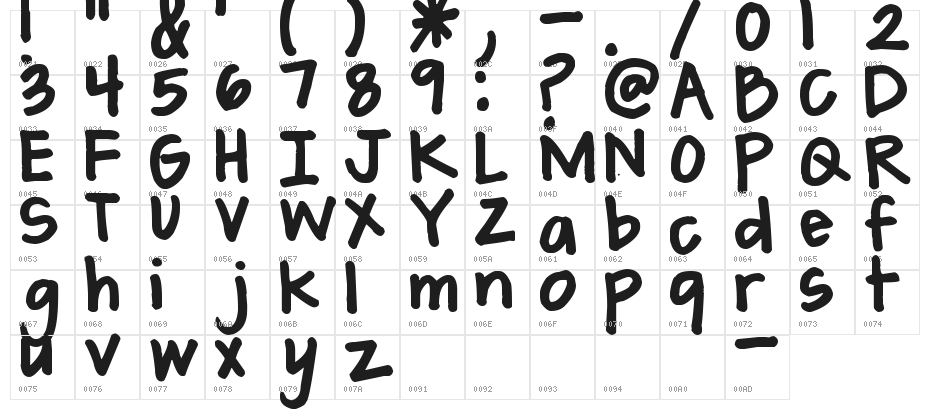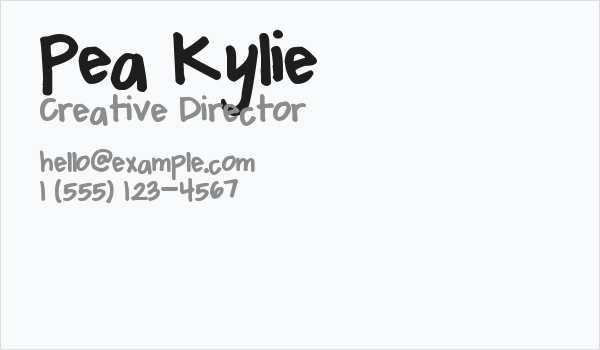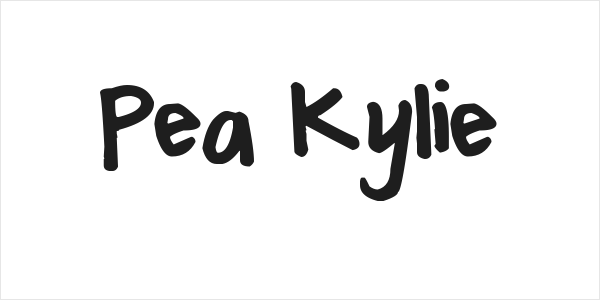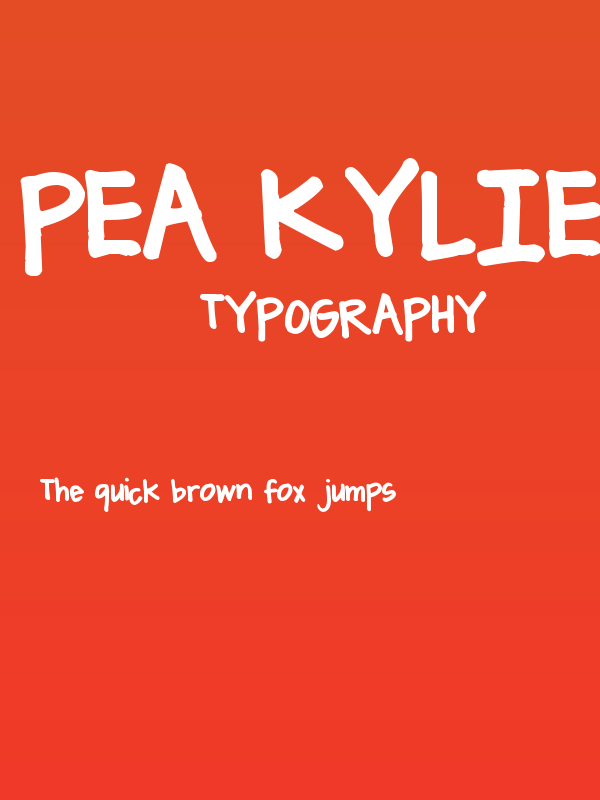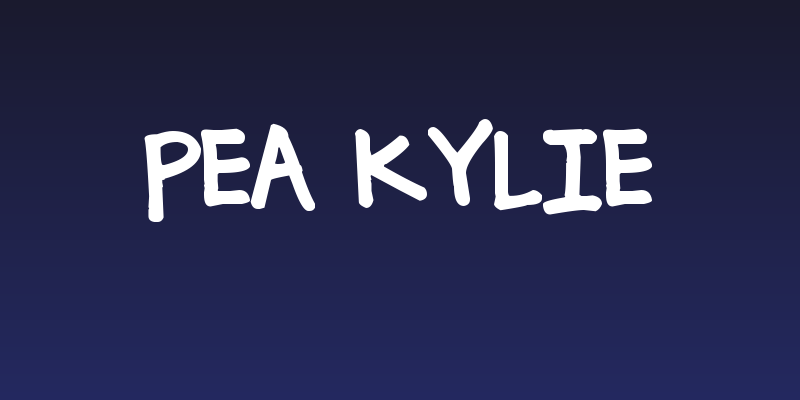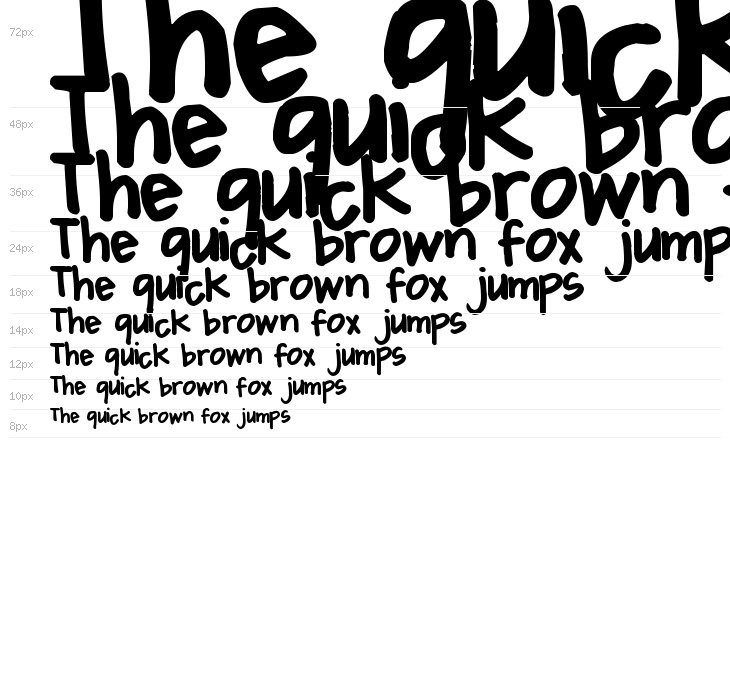
Pea Kylie Font
Pea Kylie Description
This playful and casual handwritten font exudes a sense of spontaneity and creativity. The letters are bold and rounded, with a slightly uneven baseline that adds to its informal charm. The uppercase and lowercase characters maintain a consistent style, with smooth curves and a friendly appearance. The numbers and special characters follow the same design ethos, ensuring a cohesive look across all elements. This font is perfect for projects that require a personal touch, such as greeting cards, invitations, or playful branding materials. Its legibility and unique style make it a versatile choice for various creative applications.
Overall StyleCasual, Playful
Use CaseHeadlines, Logos, Invitations
Proposed ProjectsIdeal for greeting cards, invitations, playful branding, and creative projects.